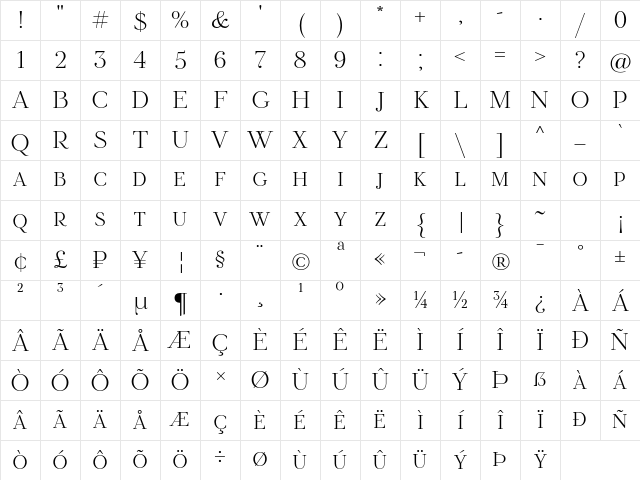
Complete TT Tsars A Trial Light glyph index. Displaying only characters natively supported by TT Tsars A Trial Light font.
TT Tsars A Trial is a composed and adaptable typeface that performs quietly and consistently across a wide range of design contexts. Its slender proportions lend an understated elegance to any composition.